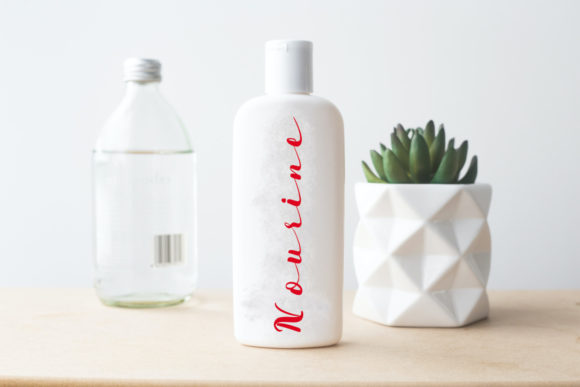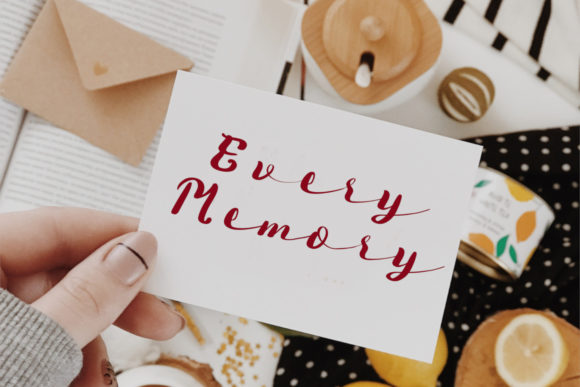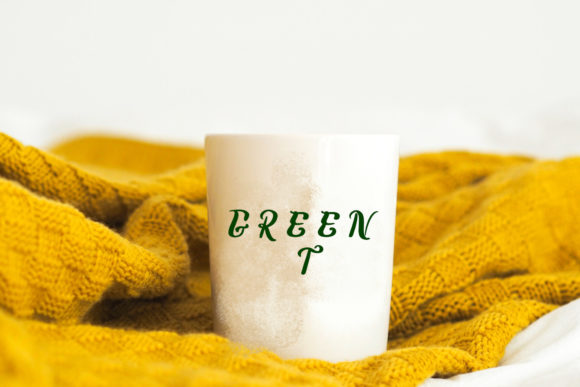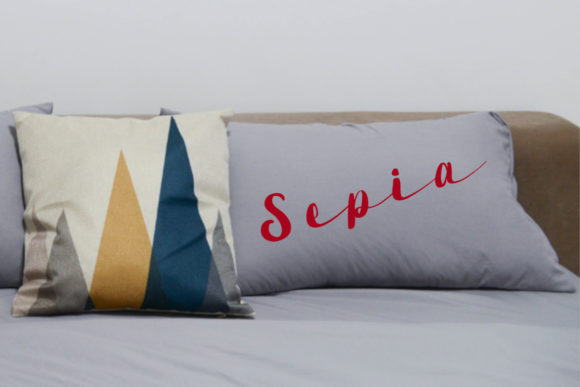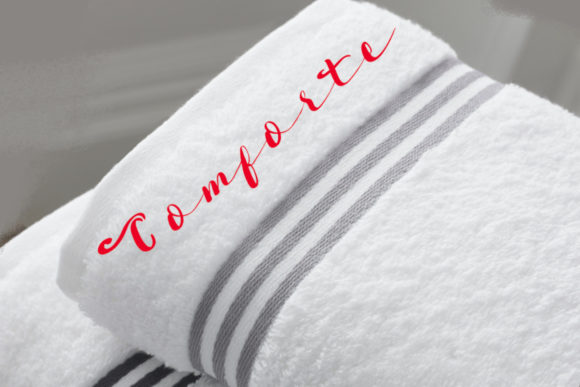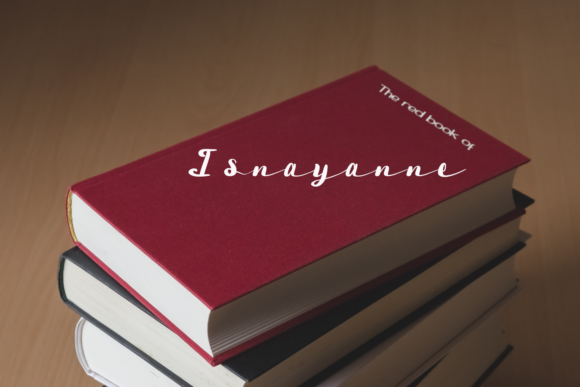
Hegra Font: Elevate Your Designs with Elegance and Sophistication
In the world of typography, a font can make or break a design. It’s the foundation upon which creativity is built, and when chosen wisely, it can elevate a project from ordinary to extraordinary. If you’re a designer, crafter, or simply someone who appreciates the art of beautiful lettering, then you’re in luck. Introducing Hegra Font, a delicate, elegant, and flowing handwritten font that’s sure to bring your most creative ideas to life.
The Beauty of Hegra Font
Hegra Font is a masterpiece of typographic design. Its delicate and flowing lines evoke a sense of elegance and sophistication, making it perfect for a wide range of design applications. From wedding invitations and branding materials to packaging and digital media, Hegra Font is the perfect choice for anyone looking to add a touch of refinement to their work.
One of the standout features of Hegra Font is its beautiful and well-balanced characters. Each letter has been carefully crafted to ensure that it flows seamlessly into the next, creating a sense of continuity and harmony. This attention to detail is what sets Hegra Font apart from other fonts on the market, making it a cut above the rest.
Hegra Font is incredibly versatile, making it suitable for a wide pool of designs. Whether you’re working on a modern and minimalist project or something more traditional and ornate, Hegra Font will fit right in. Its elegance and sophistication make it perfect for:
- Branding and packaging materials
- Digital media, such as social media graphics and blog headers
- Art and craft projects
Why Choose Hegra Font?
With so many fonts available, it can be overwhelming to choose the right one for your project. Here are just a few reasons why Hegra Font stands out from the crowd:
- Unique and eye-catching: Hegra Font is a one-of-a-kind font that’s sure to grab attention.
- Elegant and sophisticated: Its delicate and flowing lines evoke a sense of refinement and luxury.
- Versatile: Hegra Font can be used in a wide range of design applications.
- Easy to read: Despite its elegant and flowing lines, Hegra Font is incredibly easy to read, making it perfect for body text and headlines.
Tips for Using Hegra Font
- Pair it with a bold font: Hegra Font is elegant and sophisticated, but it can be even more striking when paired with a bold font.
- Use it for headlines and body text: Hegra Font is easy to read, making it perfect for both headlines and body text.
- Experiment with colors: Hegra Font looks stunning in a variety of colors, from metallic and pastel shades to bold and bright hues.
In conclusion, Hegra Font is a beautiful and elegant handwritten font that’s sure to elevate your designs to new heights. Its delicate and flowing lines, well-balanced characters, and versatility make it perfect for a wide range of design applications. Whether you’re a designer, crafter, or simply someone who appreciates the art of beautiful lettering, Hegra Font is a must-have in your font collection. So why wait? Add Hegra Font to your most creative ideas and watch as they come alive.